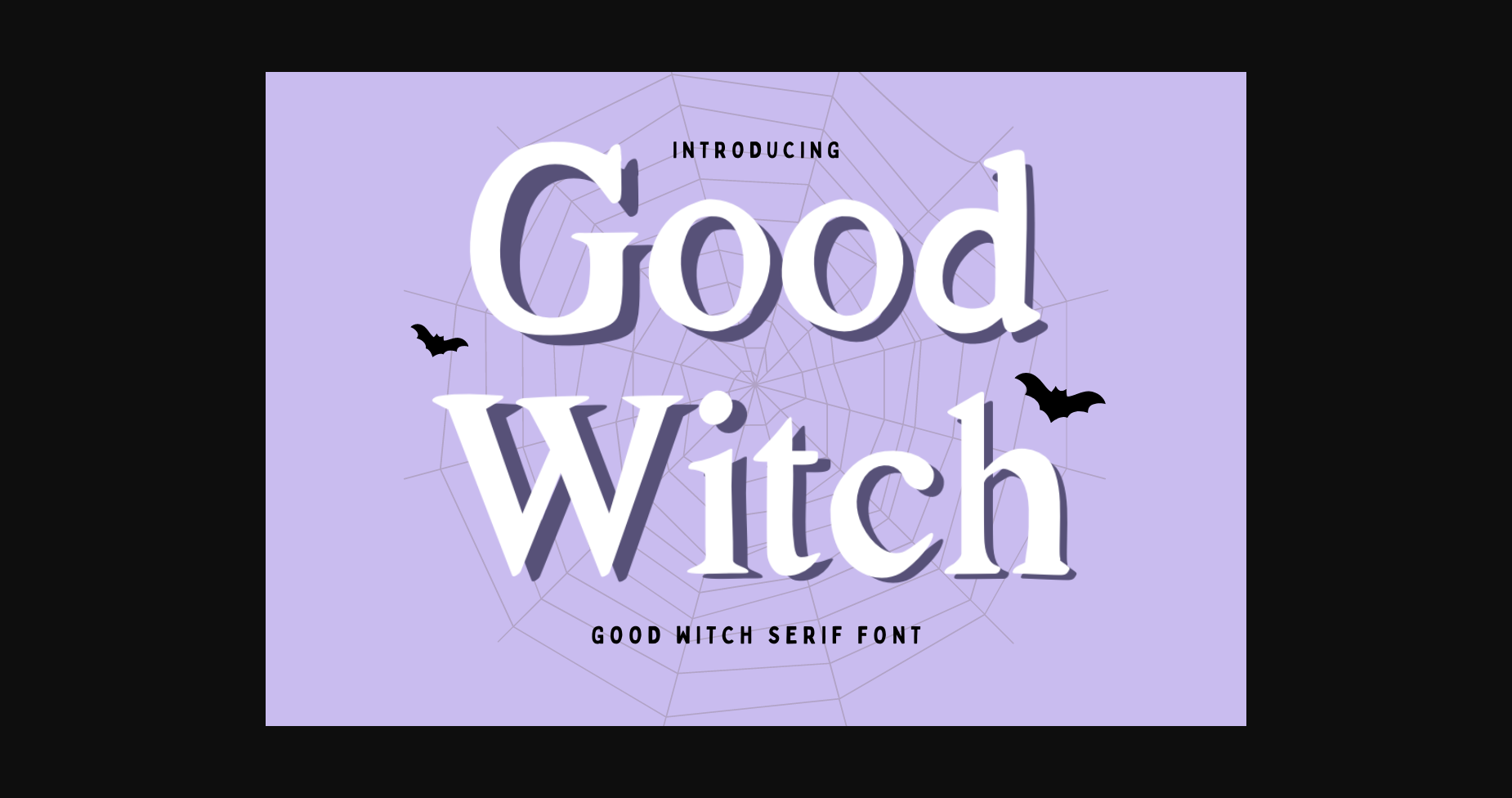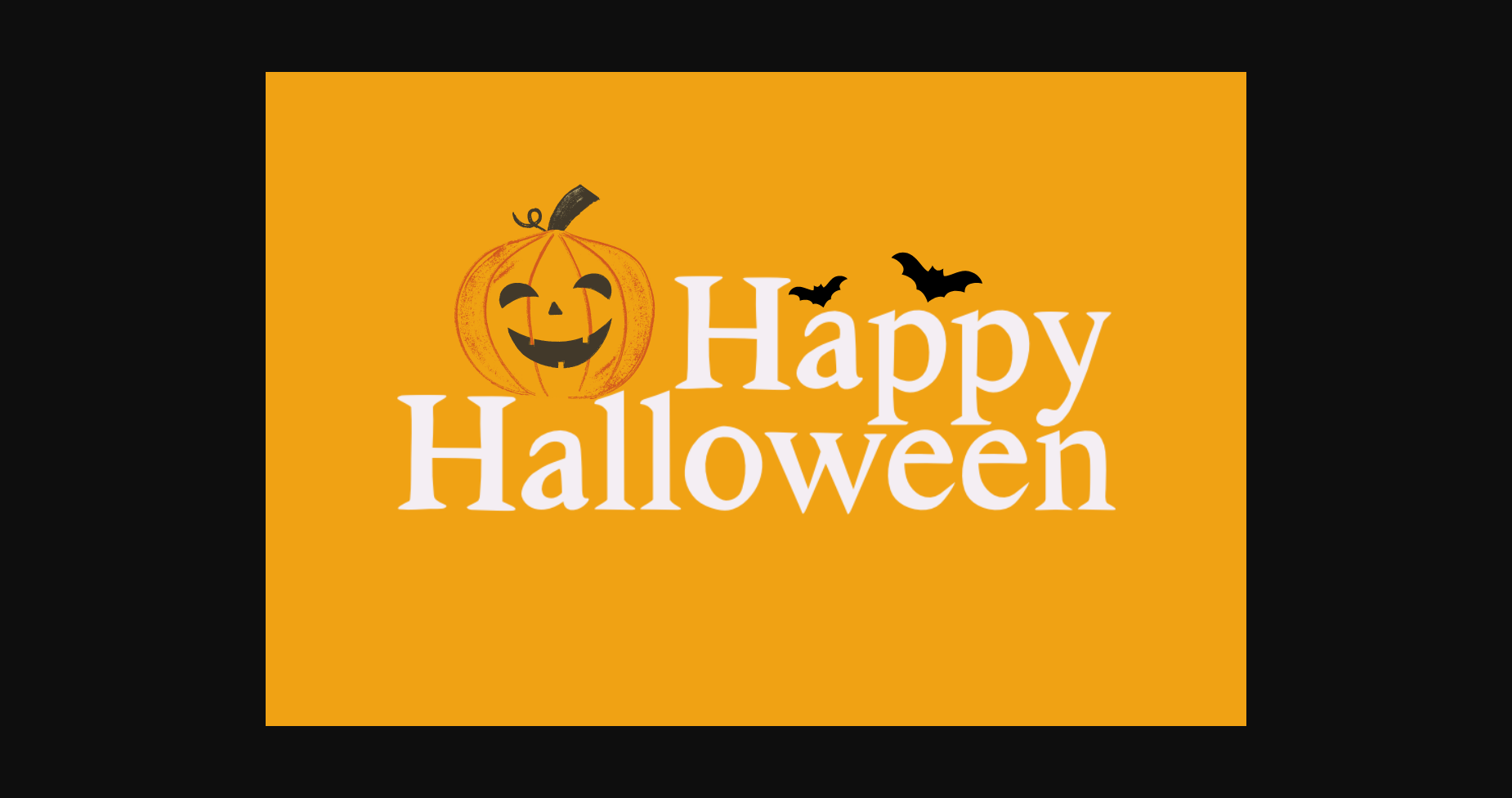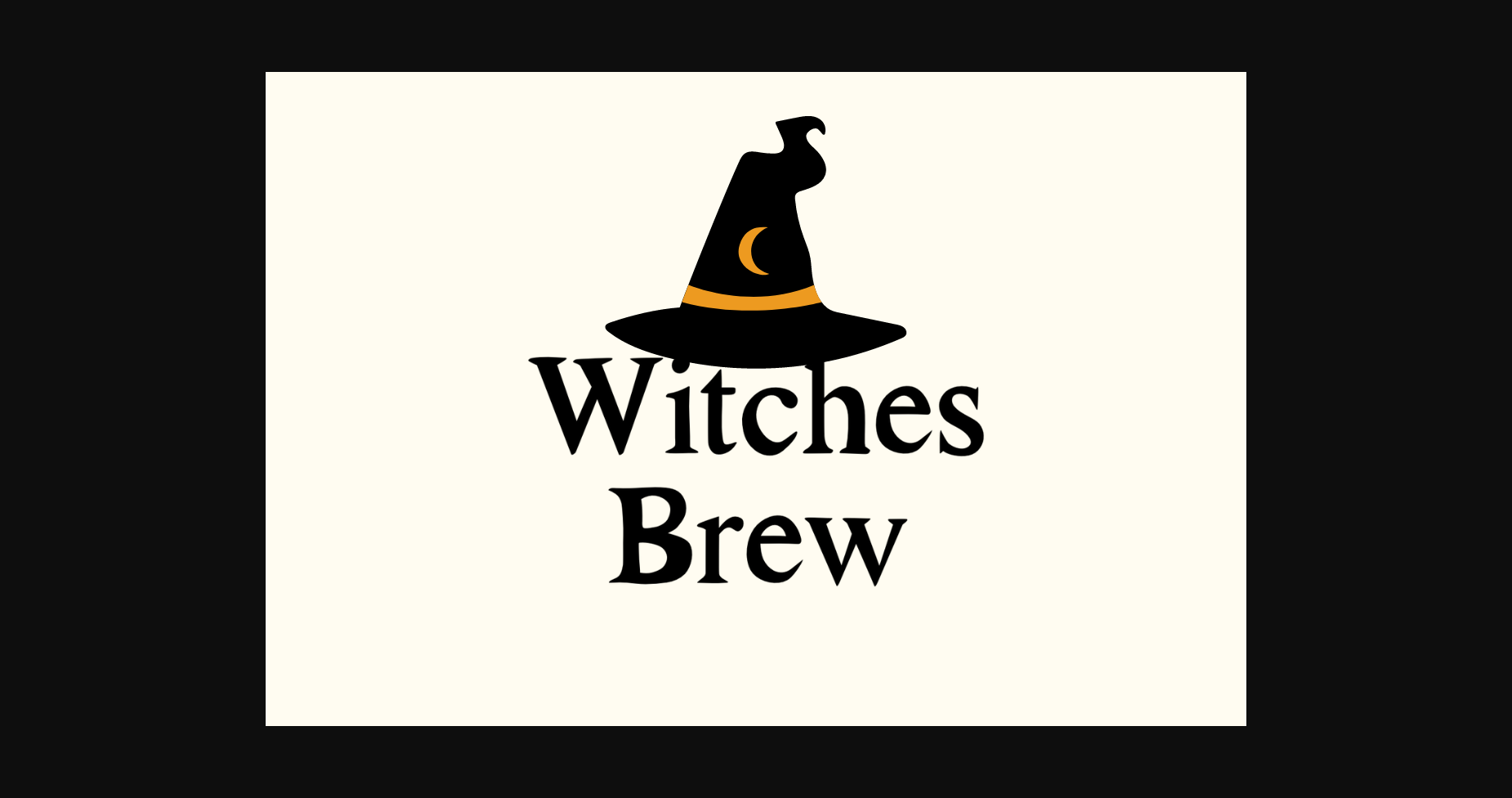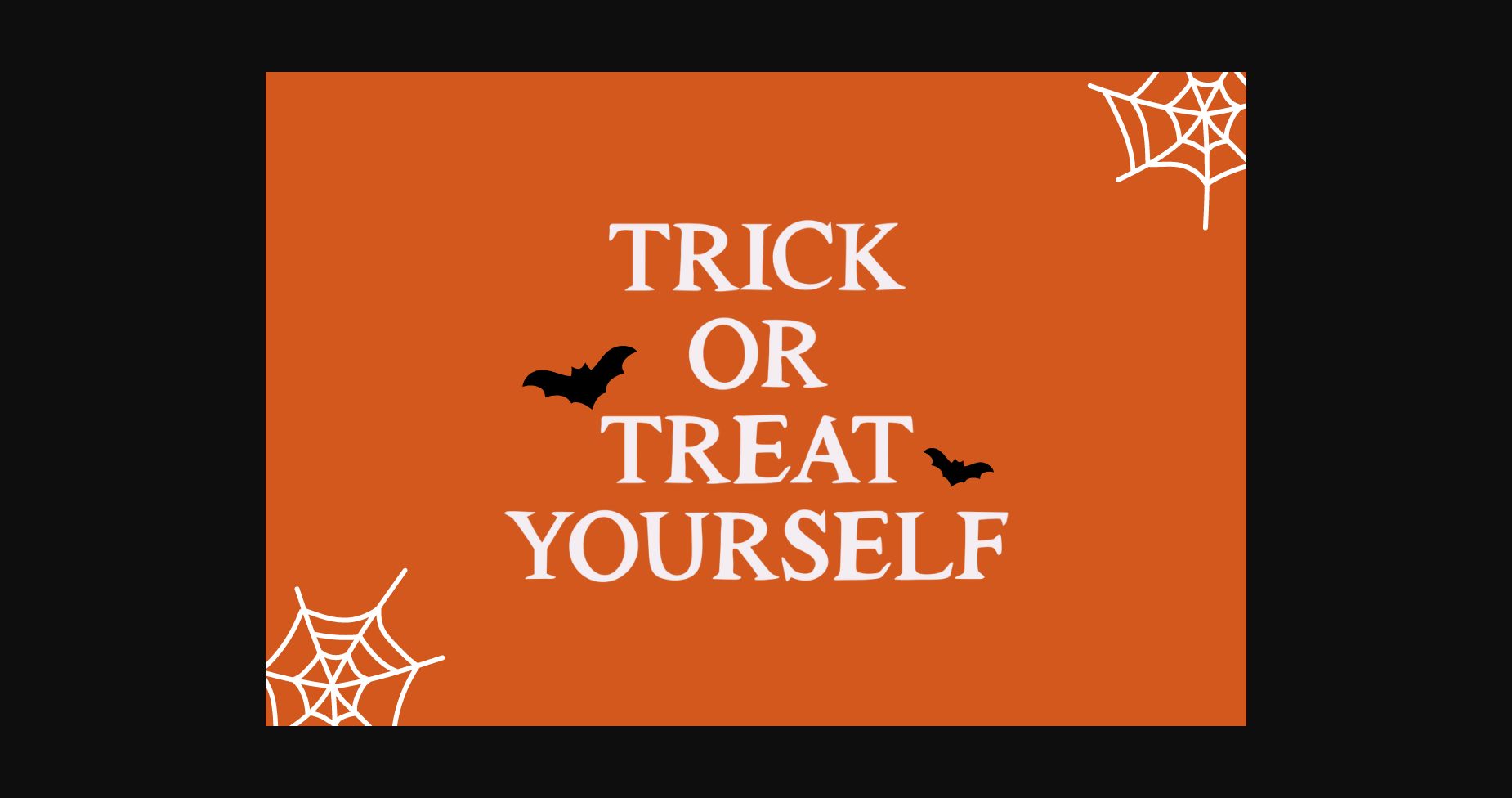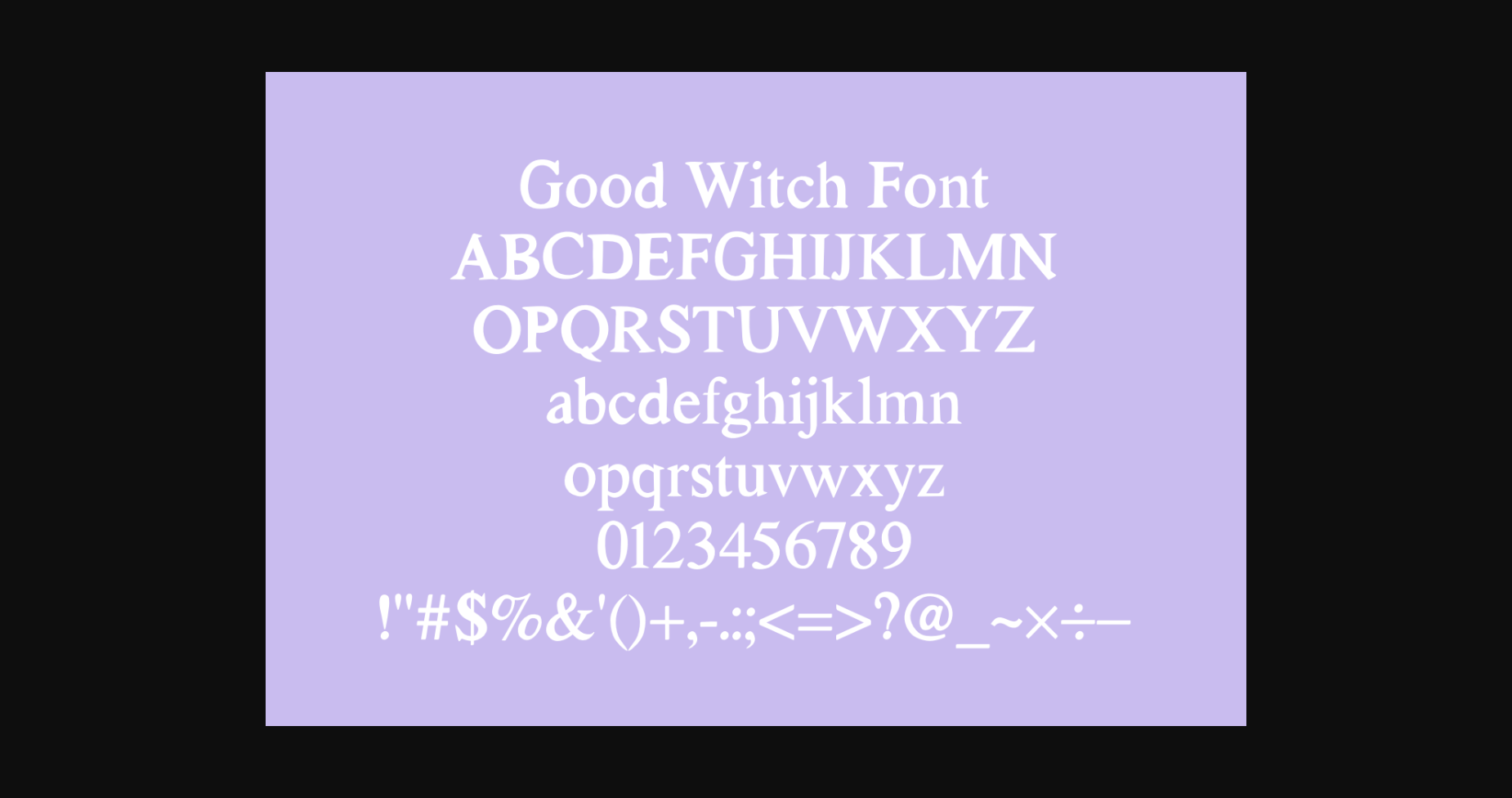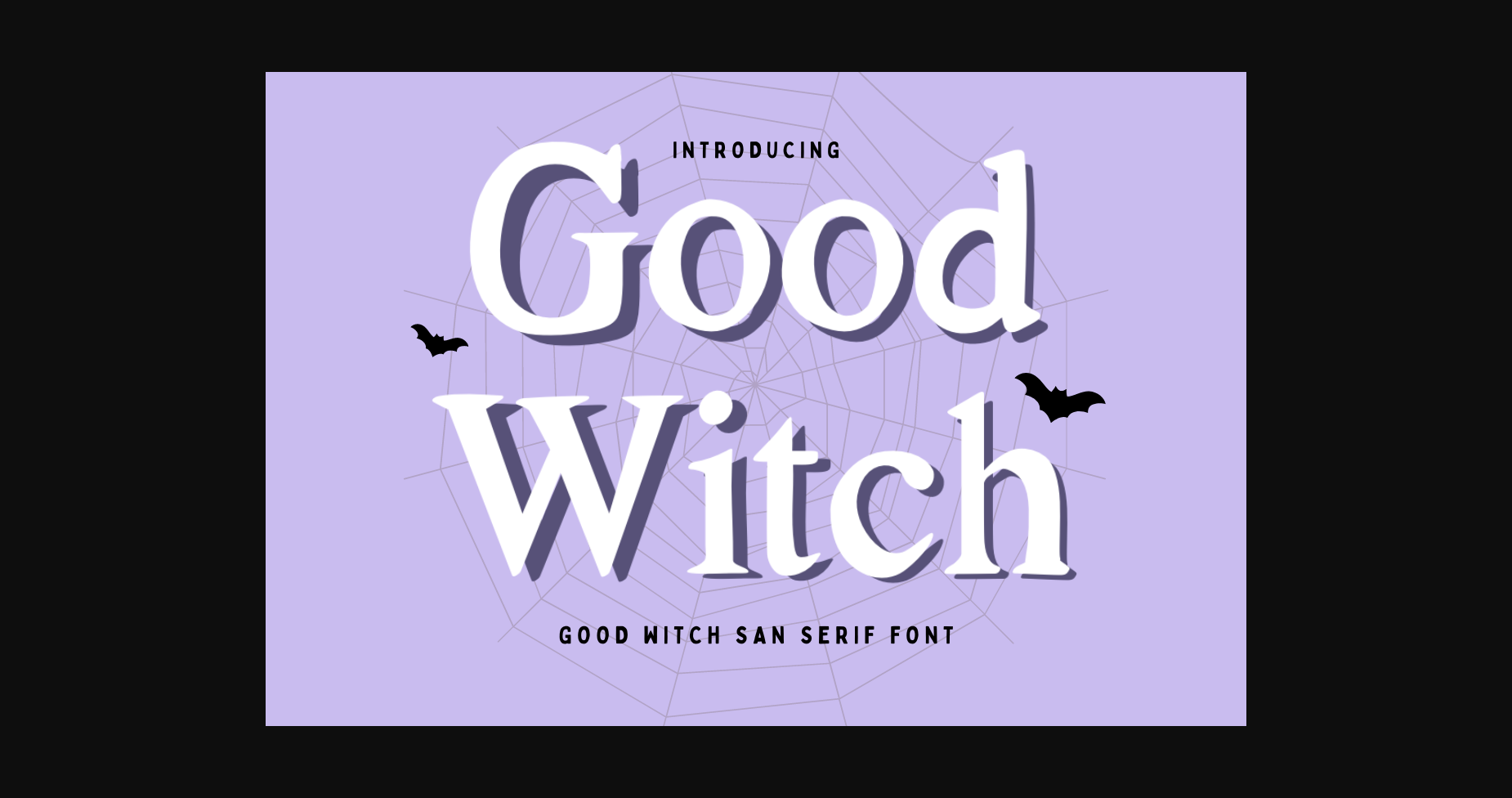
Good Witch Font
About Good Witch Font
Good Witch is a san serif typeface that captures the essence of the Halloween season. It is perfect for any October project that requires a dramatic touch!